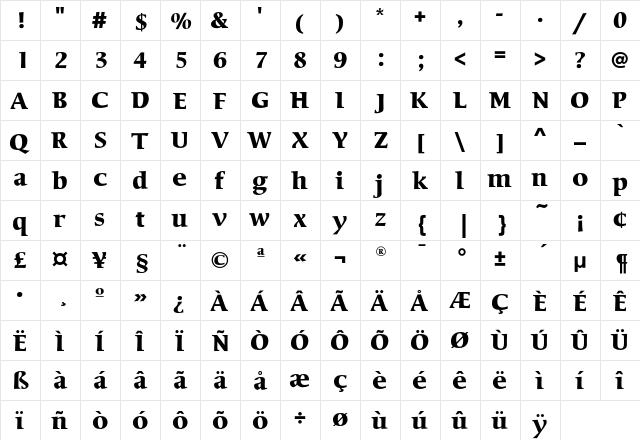
SierraEF-Bold Regular
Design Context for SierraEF-Bold Typeface
SierraEF-Bold is a composed and adaptable typeface that performs quietly and consistently across a wide range of design contexts. The heavy weight commands attention and anchors typographic hierarchies.